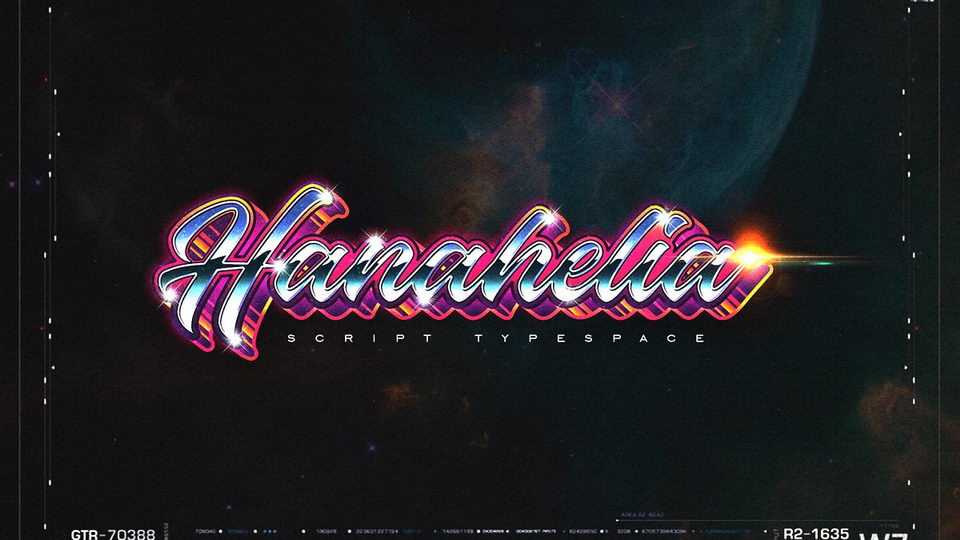
Download Hanahelia font, a modern script suitable for displaying layout designs in the 80s. By adding neon and shiny effects, Hanahelia is perfect for designing logotypes, posters, flyers, advertisements, etc.
Designer: Typealiens